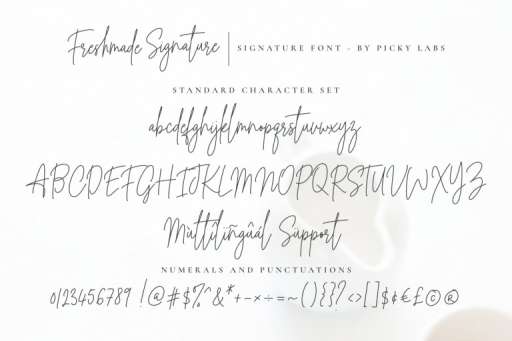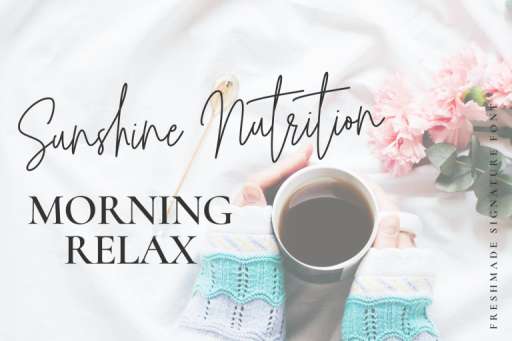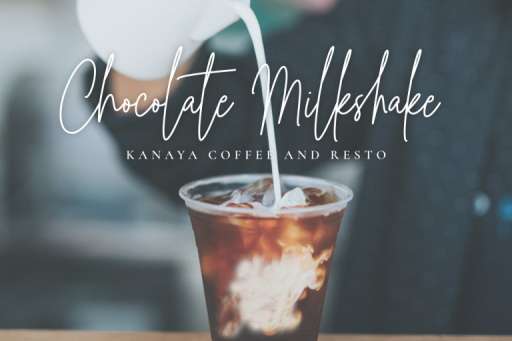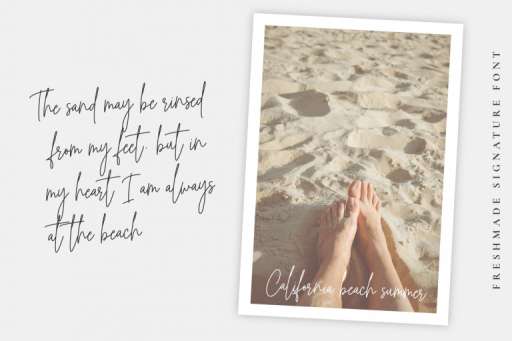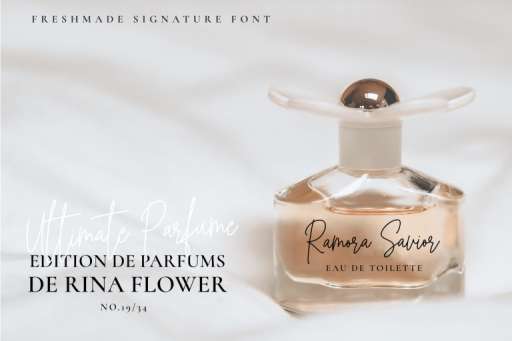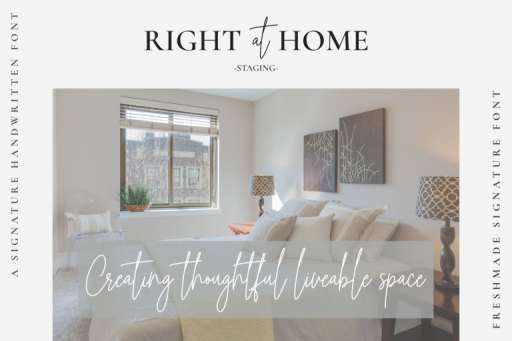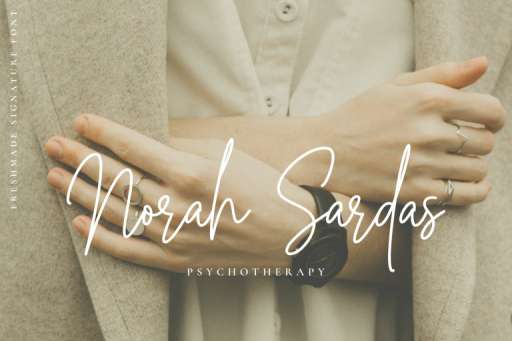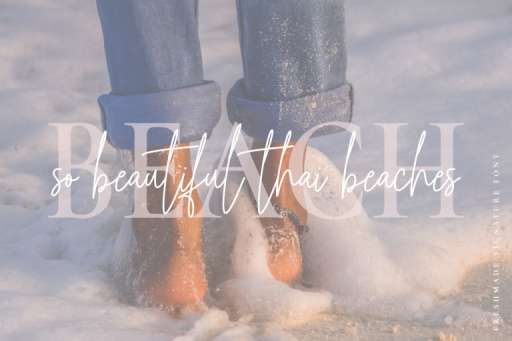
Freshmade Signature Font
Freshmade – Signature Business Font
Freshmade Signature font is a simple and classy font with a monoline script that you can use to perfect your design.
Freshmade Signature font is a great choice for branding, logo, web design, product design, album cover, signature-style logos, business cards, and many other design projects.
Freshmade Signature Font
Freshmade Signature font is a simple and classy font with a monoline script that you can use to perfect your design.